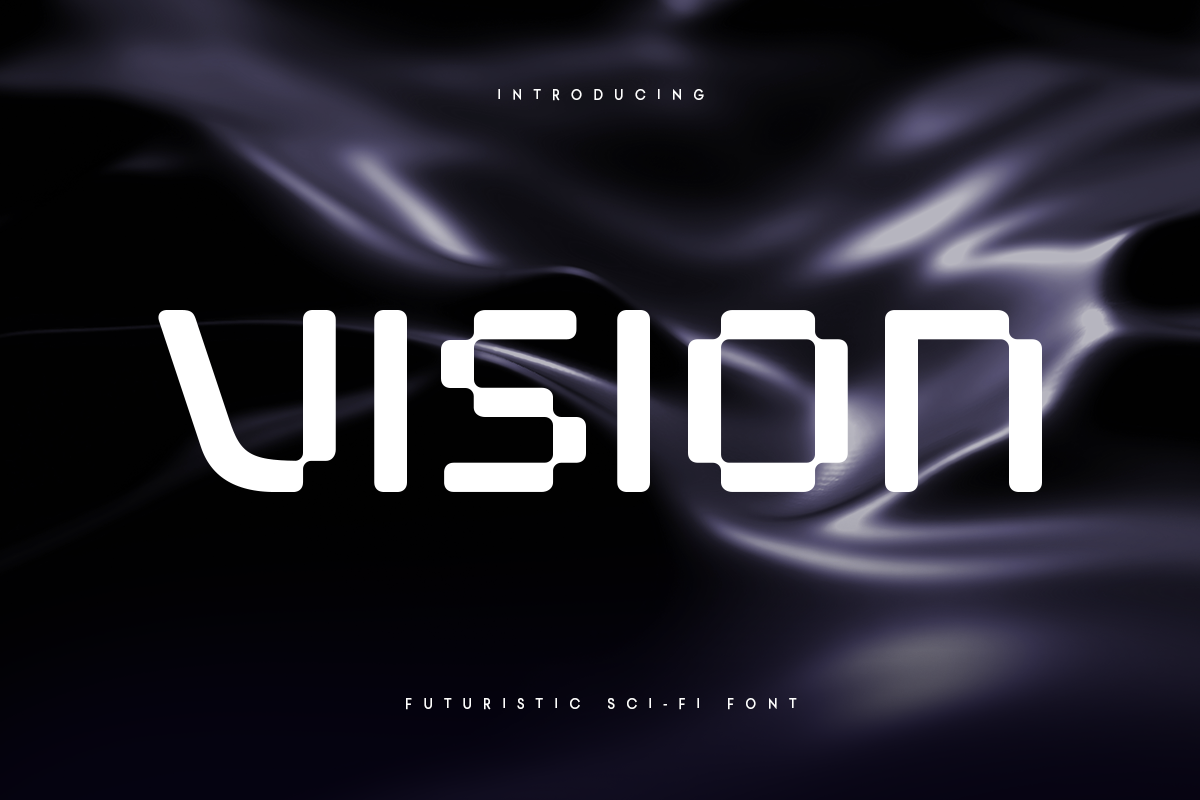
Vision - Futuristic Scifi Font
Vision delivers cutting-edge futuristic typography designed to make your sci-fi and tech projects stand out. This modern sport sci-fi font is specially crafted for technology, action, and futuristic design needs. Vision features bold styling with contemporary appeal, making it perfect for headlines and standout typography that showcases your main concepts with authority. The typeface excels in sci-fi themes, modern applications, technology branding, and action-oriented designs. Its distinctive c...